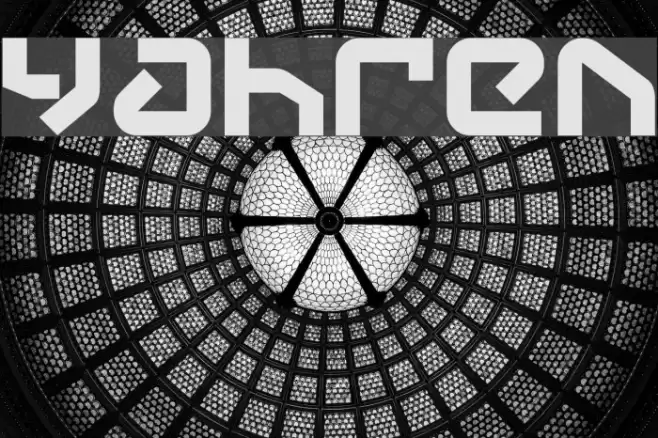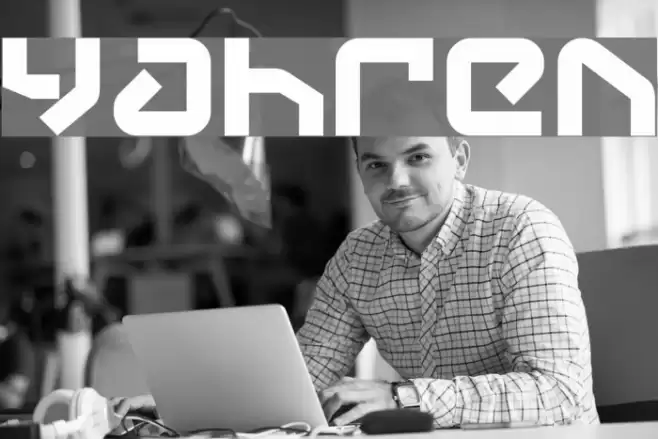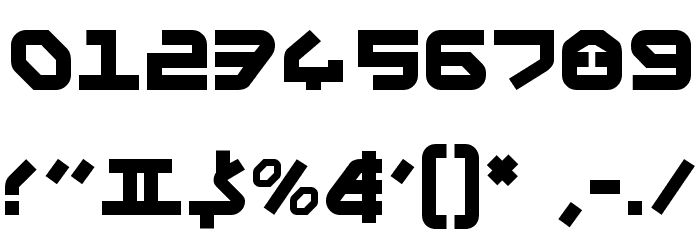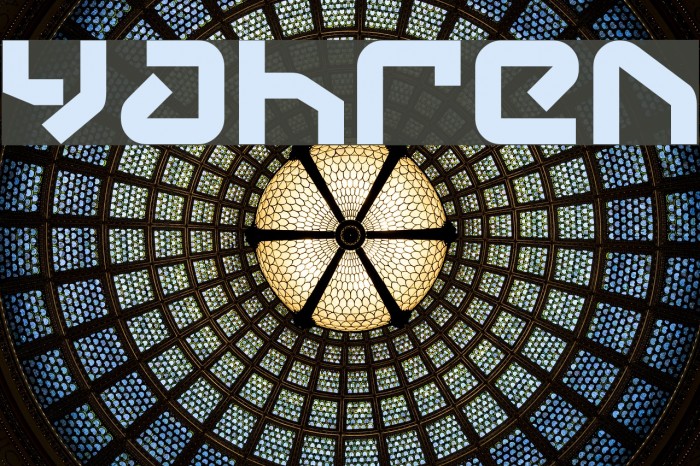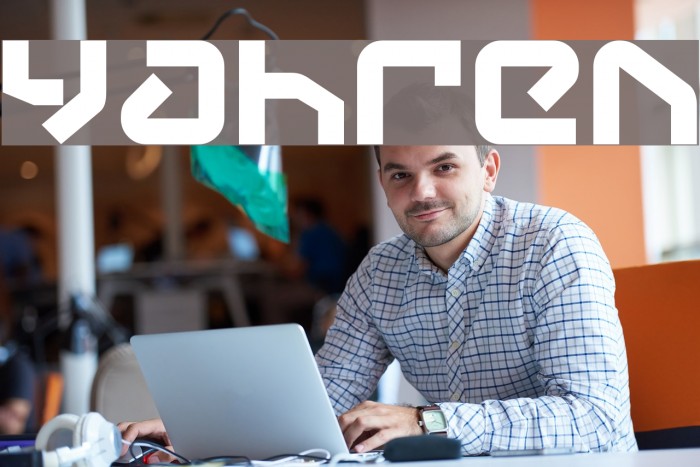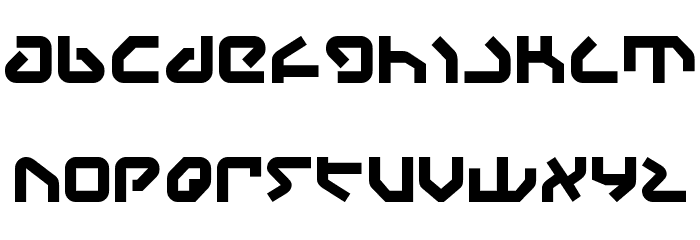
Yahren Font
Yahren Description
This font features a bold, geometric design with angular shapes and a futuristic aesthetic. The characters are constructed with thick lines and sharp angles, giving it a strong and assertive presence. The uppercase and lowercase letters share a consistent style, maintaining the bold and angular theme throughout. Numbers and special characters are also designed to match this distinctive style, ensuring uniformity across all elements. The font's unique appearance makes it stand out, suitable for projects that require a modern and edgy look.
A bold, geometric font with angular shapes and a futuristic style from Futuristic fonts.
- Proposed Projects: Ideal for sci-fi themed posters, video game graphics, technology branding, and modern logo designs.
- Overall Style: Futuristic